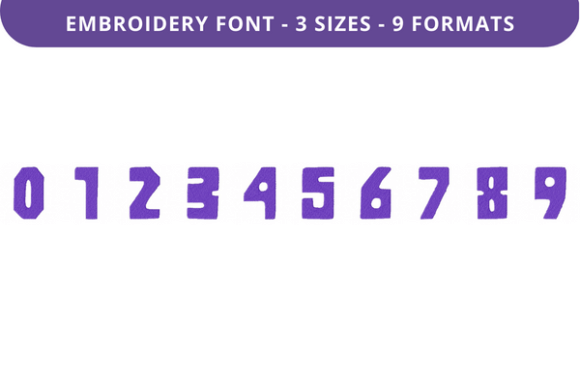
Ghuzag Chest Font 0 to 9: A Versatile Embroidery Tool for Creative Expression
If you're looking for a reliable and stylish embroidery font that can elevate your fabric projects, Ghuzag Chest Font 0 to 9 is worth considering. This high-quality embroidery font offers a unique blend of design and functionality, making it an excellent choice for both beginners and experienced crafters. Whether you're creating personalized gifts, branding materials, or decorative items, this font can help you bring your ideas to life with precision and flair.
What Is Ghuzag Chest Font 0 to 9?
Ghuzag Chest Font 0 to 9 is a specialized embroidery font designed to provide clear, legible, and aesthetically pleasing text for fabric. It includes numbers from 0 to 9, making it particularly useful for dates, names, or short messages. The font is crafted with attention to detail, ensuring that each character maintains its shape and clarity even when stitched onto fabric.
This font is not just about the numbers; it's about the overall look and feel of the design. Its chest-like appearance gives it a distinctive character, which can be ideal for those who want their embroidery to stand out. The font is available in multiple embroidery file formats, making it compatible with a wide range of embroidery machines and software.
Where and When to Use Ghuzag Chest Font 0 to 9
The versatility of Ghuzag Chest Font 0 to 9 means it can be used in various settings. For instance, if you're a small business owner running a boutique or a local store, this font can be used to create custom tags, labels, or signage. It can also be used to personalize products like tote bags, aprons, or clothing items, adding a personal touch that customers will appreciate.
For educators or trainers, this font can be used to create classroom signs, name tags, or motivational quotes on fabric. It's also a great option for bloggers or content creators who want to add a visual element to their DIY tutorials or craft videos. The font’s distinct style makes it perfect for projects that require a bit of personality and creativity.
On a more personal level, hobbyists and everyday users can use this font to create meaningful keepsakes. Whether it's a birthday gift for a loved one or a special message for a family member, Ghuzag Chest Font 0 to 9 allows for customization that feels genuine and heartfelt.
Why Choose Ghuzag Chest Font 0 to 9
One of the main reasons to choose Ghuzag Chest Font 0 to 9 is its adaptability. Unlike generic fonts, this one is tailored for embroidery, meaning it performs well on fabric without losing its integrity. The font's design ensures that each number is clearly visible, even when viewed from a distance.
Another advantage is its compatibility with multiple embroidery machines. Whether you're using a basic home machine or a professional-grade system, this font works seamlessly across different platforms. This flexibility makes it an ideal choice for users who may have varying levels of experience or equipment.
Real-World Applications of Ghuzag Chest Font 0 to 9
Let’s consider some practical examples of how this font can be applied in different scenarios:
- Creative Entrepreneurs: A craft shop owner might use this font to label custom items like monogrammed towels or embroidered patches. It adds a professional touch while maintaining a personal feel.
- Event Planners: This font could be used to create event banners or signage for weddings, birthdays, or corporate functions. The unique design helps the text stand out against the background.
- Freelancers: Designers working on client projects can use this font to add a creative twist to their work. It’s especially useful for creating custom logos or branding elements that require a distinctive look.
- Personal Projects: A hobbyist might use the font to create a quilt with a special date or message, turning a simple project into a cherished memory.
Each of these applications highlights how Ghuzag Chest Font 0 to 9 can be tailored to meet specific needs, whether for commercial use or personal expression.
Considerations Before Using Ghuzag Chest Font 0 to 9
Before purchasing or downloading Ghuzag Chest Font 0 to 9, there are a few factors to keep in mind. First, ensure that the font is compatible with your embroidery machine and software. While the font supports multiple file formats, it's always a good idea to check the specifications before making a purchase.
Second, consider the purpose of your project. If you're creating something for a large audience, such as a product line or branding material, make sure the font aligns with your overall aesthetic. If you're using it for a personal project, focus on how it enhances the emotional value of the piece.
Conclusion
Ghuzag Chest Font 0 to 9 is more than just a set of numbers—it's a versatile tool that can enhance a wide range of creative and practical projects. Whether you're a small business owner, educator, hobbyist, or content creator, this font offers a unique way to personalize your work and connect with your audience. By understanding its features and applications, you can make informed decisions about how to best utilize it in your own projects.